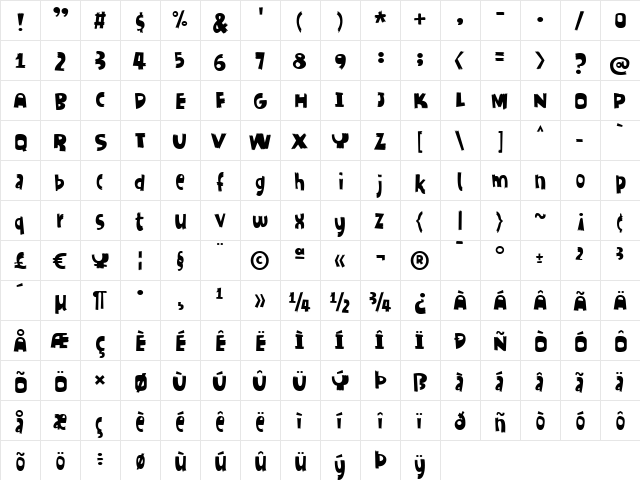
Empty Head 2 Regular
Design Context for Empty Head 2 Typeface
Empty Head 2 is a composed and adaptable typeface that performs quietly and consistently across a wide range of design contexts.